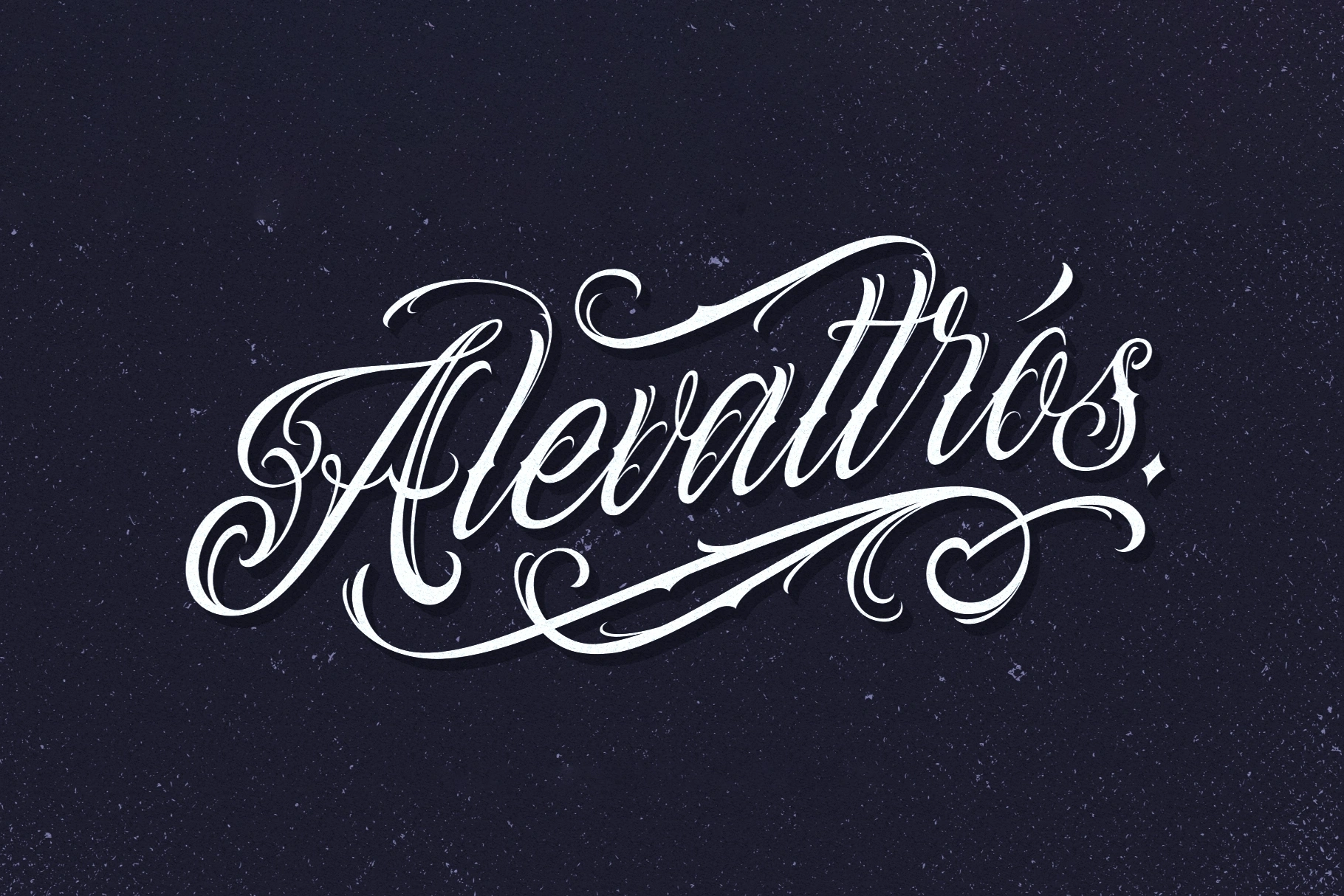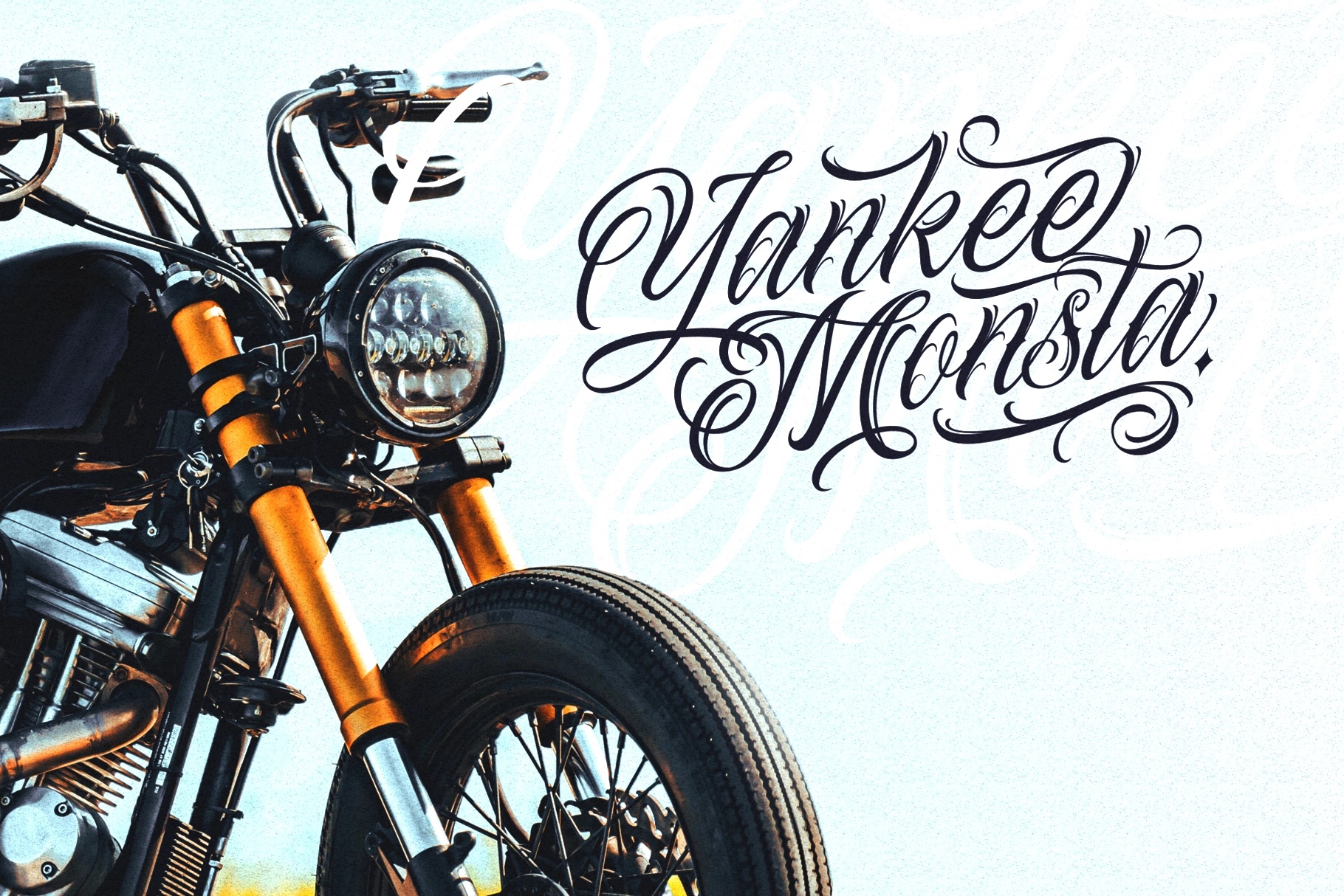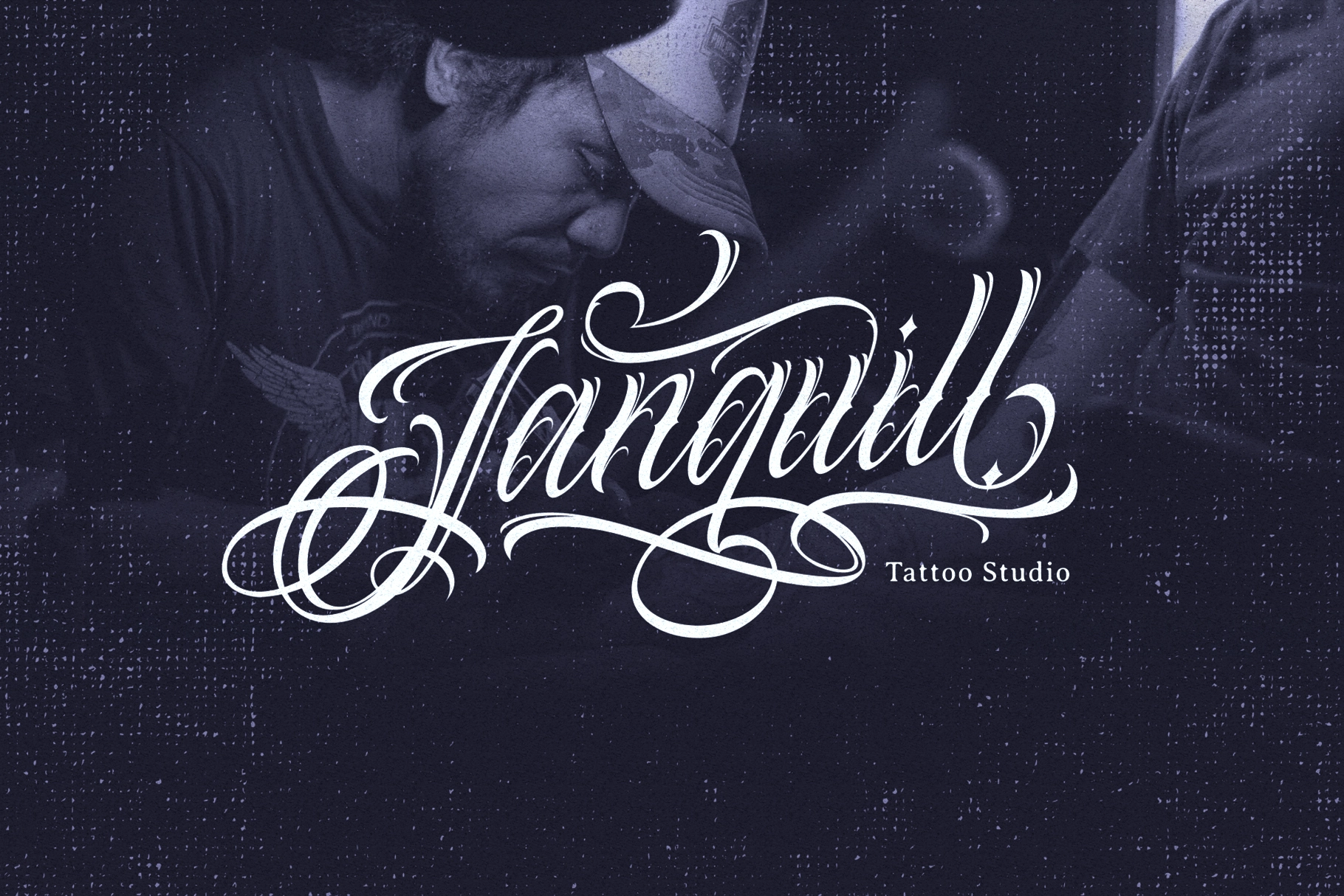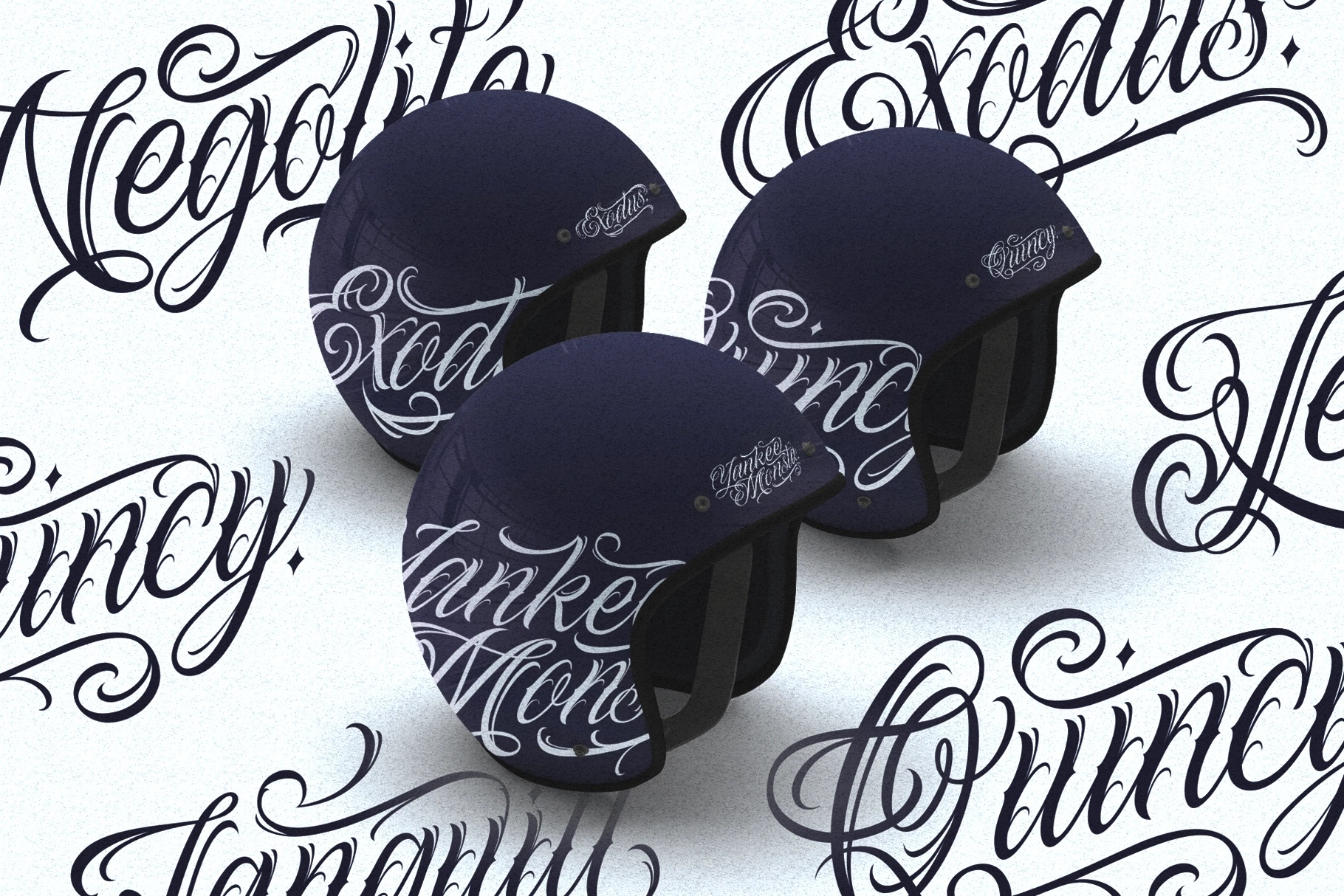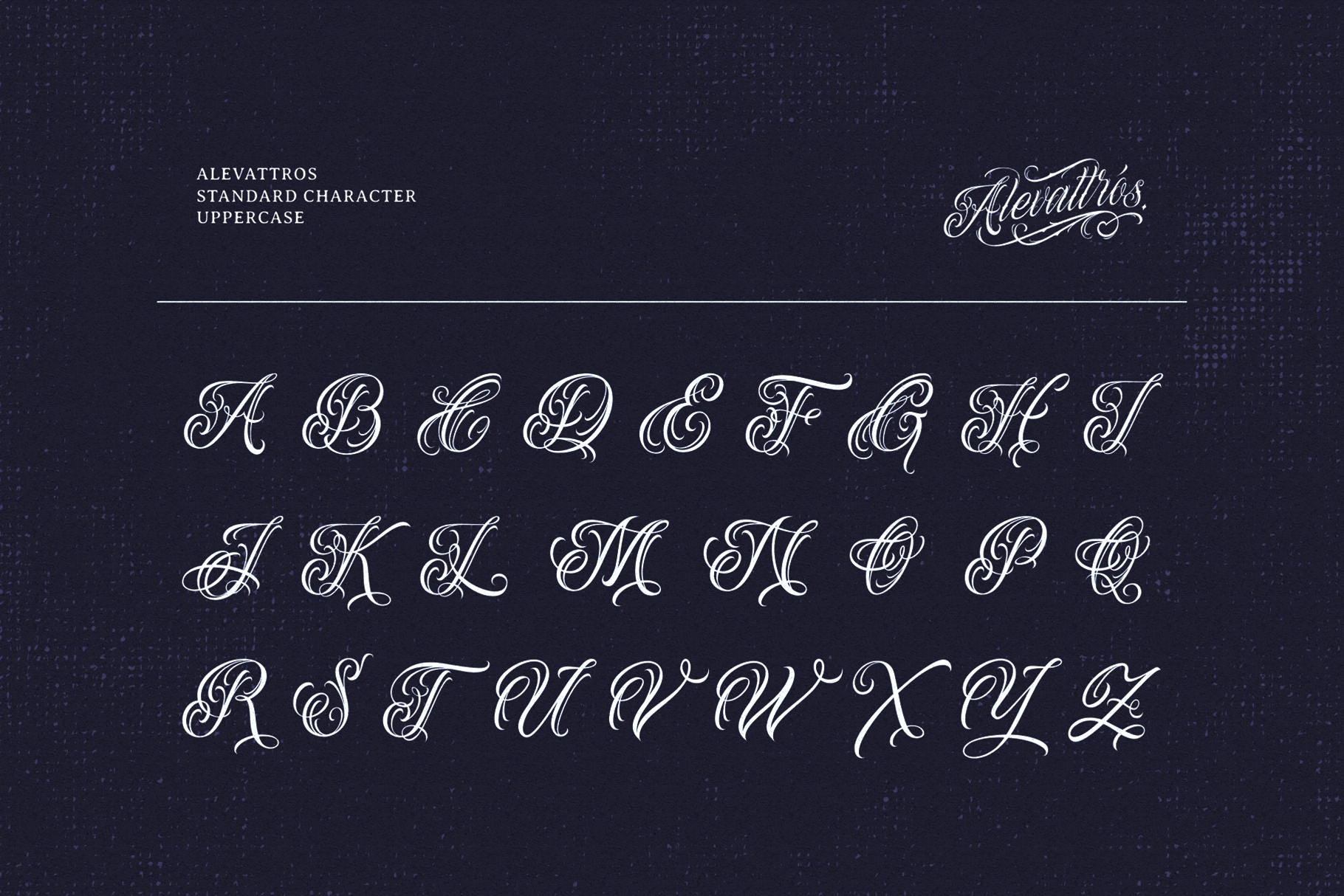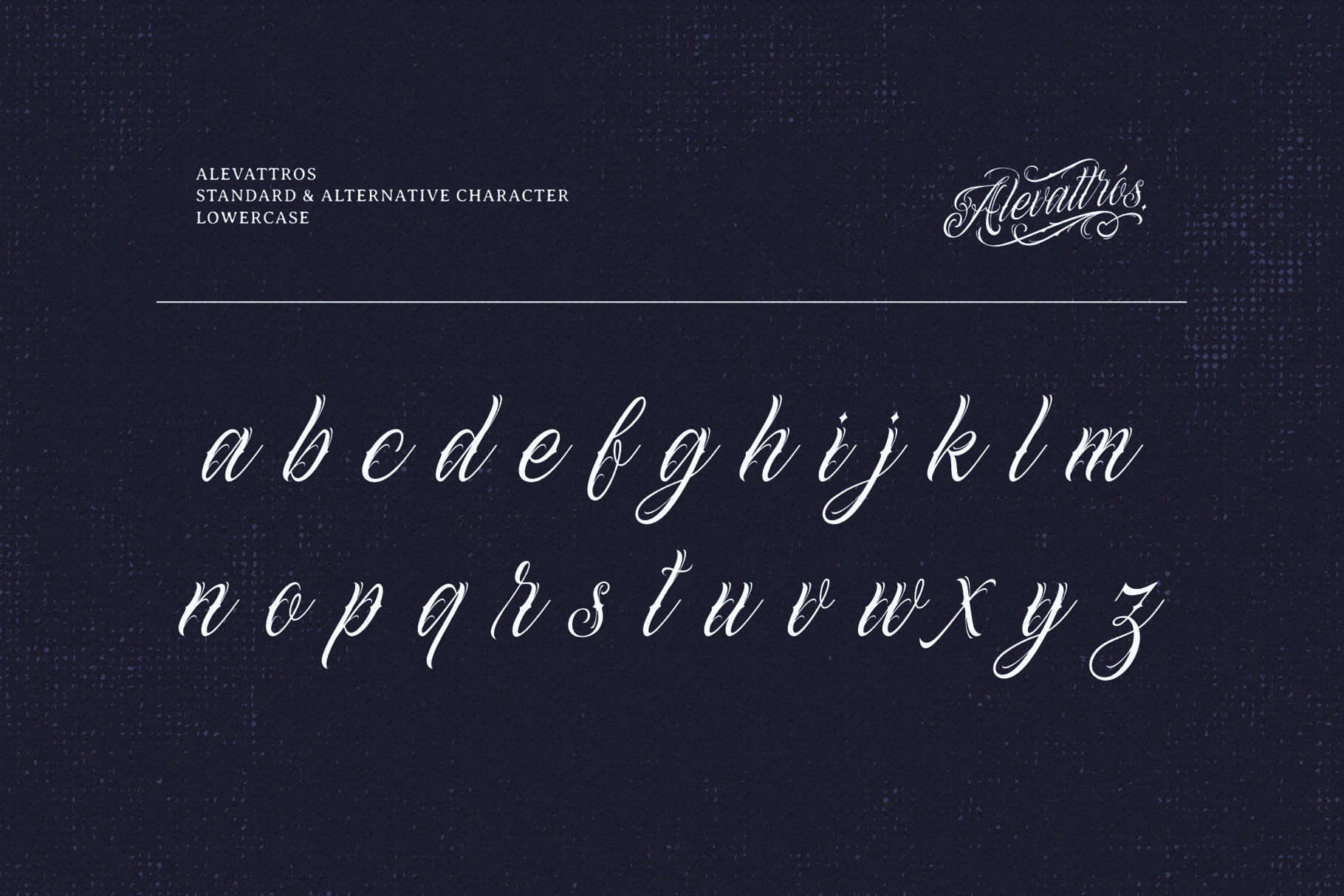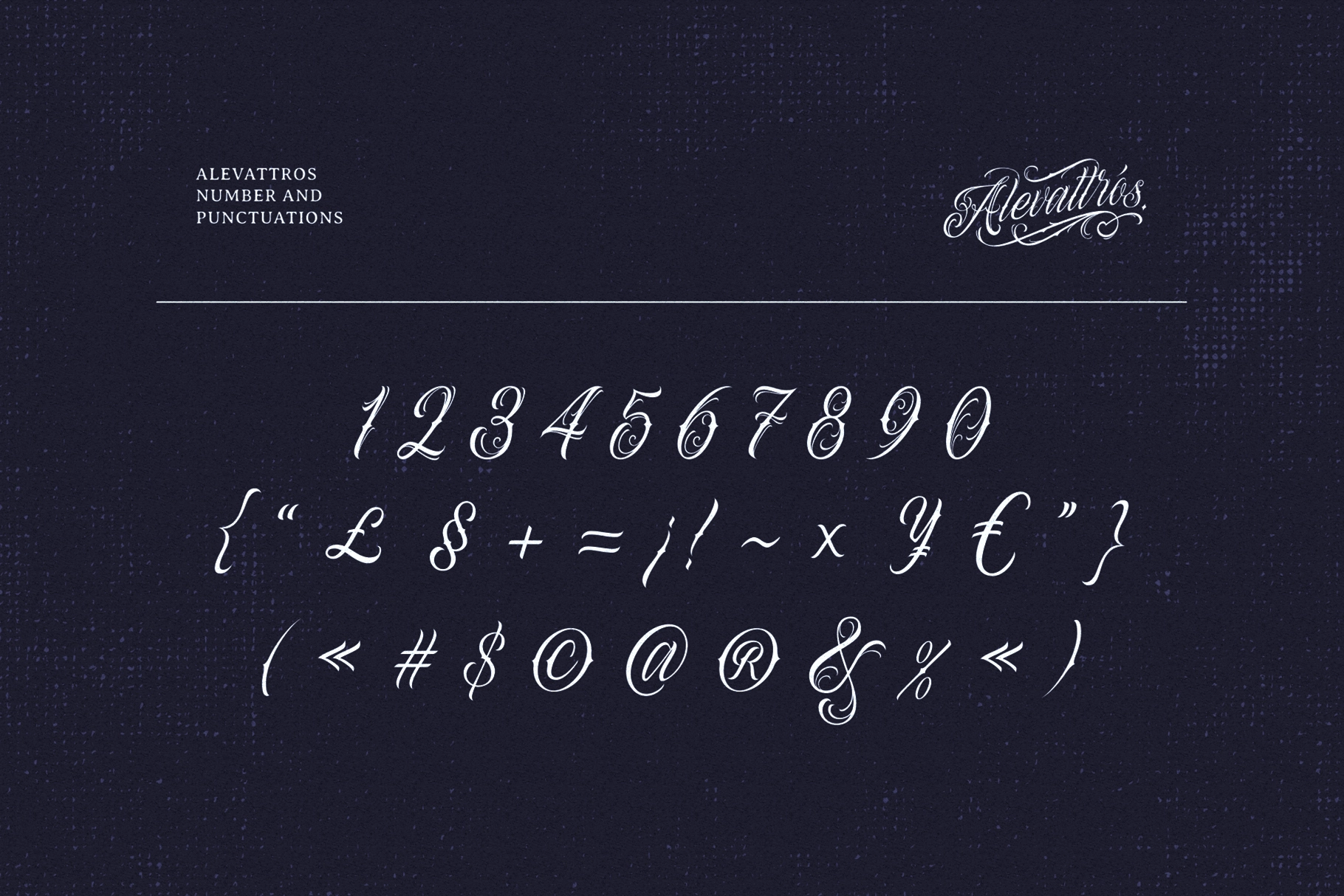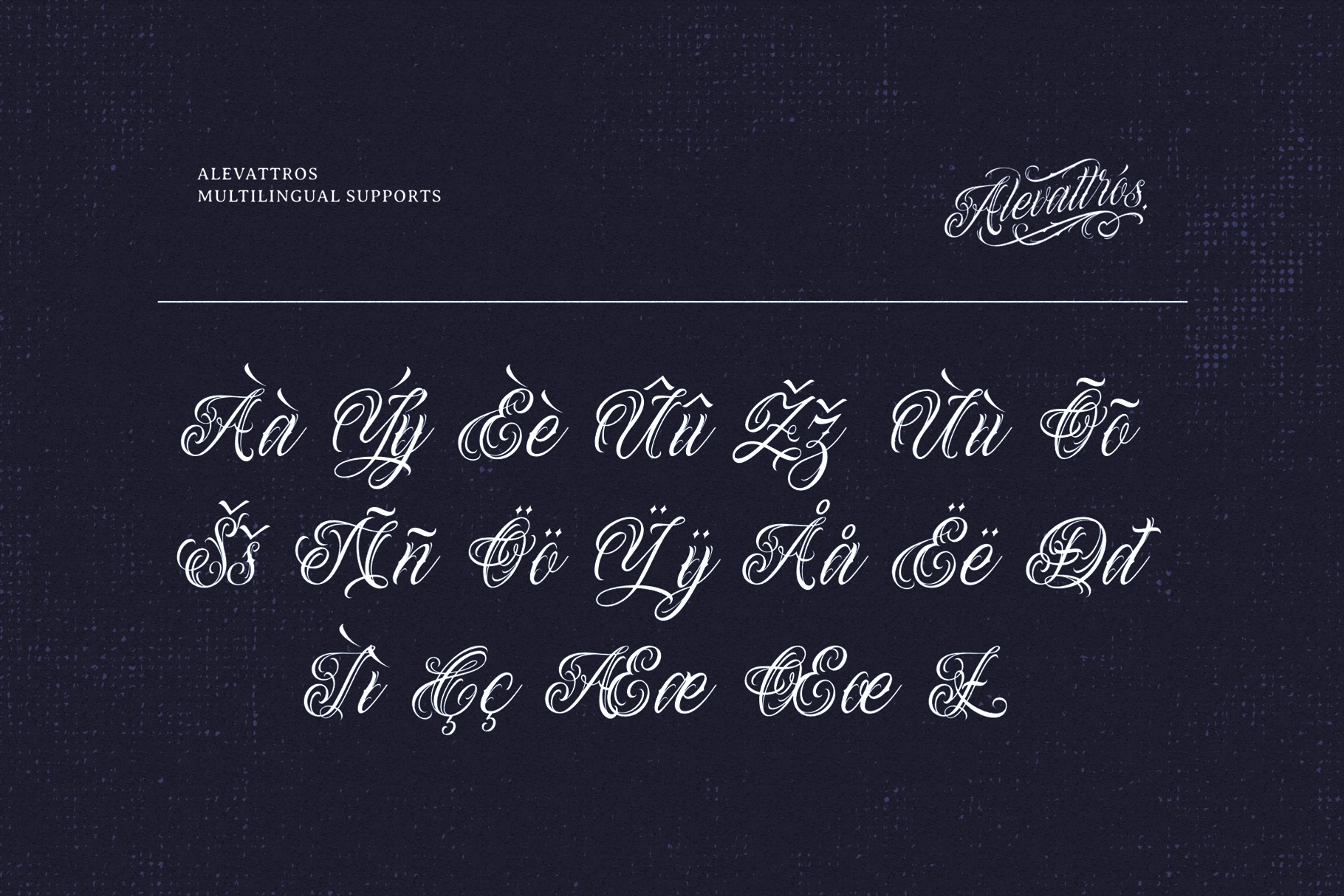
Alevattros - Tattoo Script Font
Alevattros
Alevattros is a tattoo script font rooted in quill-pen calligraphy tradition — high-contrast strokes, deep swash tails on the capitals, and flourish loops that spiral well past the baseline. The construction sits closer to ornate hand-lettered flash art than to a clean wedding typeface, and it holds that character whether set large on a logo or tight on a label. Use it for tattoo studio branding, logo lettering, apparel graphics, music merch, poster headlines, bar and barbershop signage, packaging for artisan goods, and editorial display.
- Uppercase & lowercase;
- Numerals, punctuation & symbols;
- Stylistic alternates;
- Vector extras;